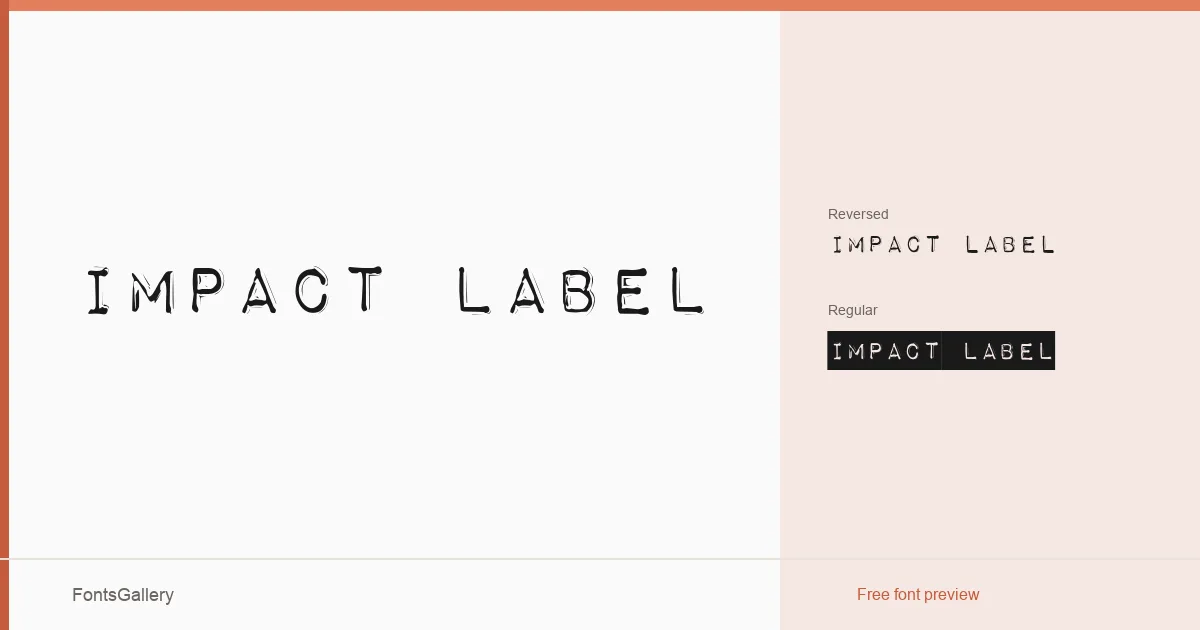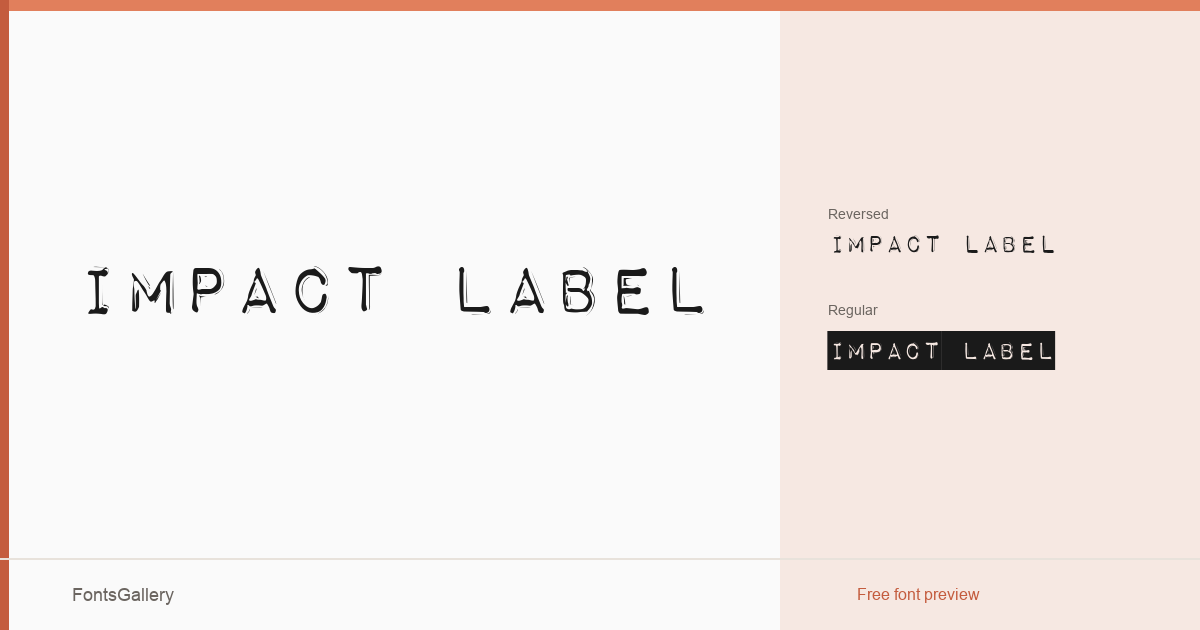
About Impact Label Font
Impact Label is a monospace typeface released by the Michael Tension foundry, blending a distinctly vintage character with a grunge-edged aesthetic. It strikes a balance between professional structure and raw, tactile energy, making it a compelling choice for designers seeking typographic personality. Its monospaced construction gives it a regimented, purposeful quality that grounds its more expressive grunge qualities.
The letterforms of Impact Label combine the even, fixed-width spacing of monospace design with a minimal yet gritty visual treatment that evokes vintage print and label culture. Each character carries a weathered, worn quality consistent with its grunge mood tags, while maintaining enough professional restraint to feel intentional and controlled. The result is a typeface that feels both nostalgic and contemporary in equal measure.
Impact Label is well suited for high-impact applications such as posters, magazine layouts, website headers, branding projects, and T-shirt designs where a strong typographic statement is needed. Its vintage-grunge character makes it especially effective for bold headline treatments and label-style branding. It pairs well with the clean neutrality of Helvetica or the complementary style of Aresink to create balanced, visually dynamic compositions.